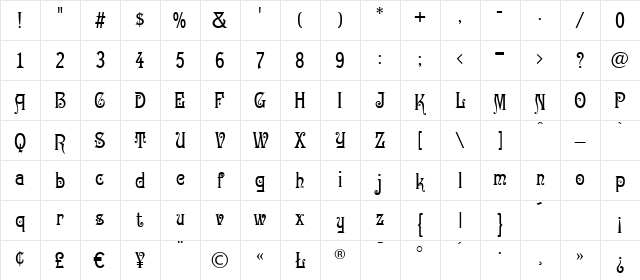
Gertruda Victoriana Normal
Foundry: Gophmann AL
Designer: Gophmann AL
Design Context for Gertruda Victoriana
Gertruda Victoriana is a composed and adaptable typeface that performs quietly and consistently across a wide range of design contexts.
Who designed the Gertruda Victoriana Normal font?